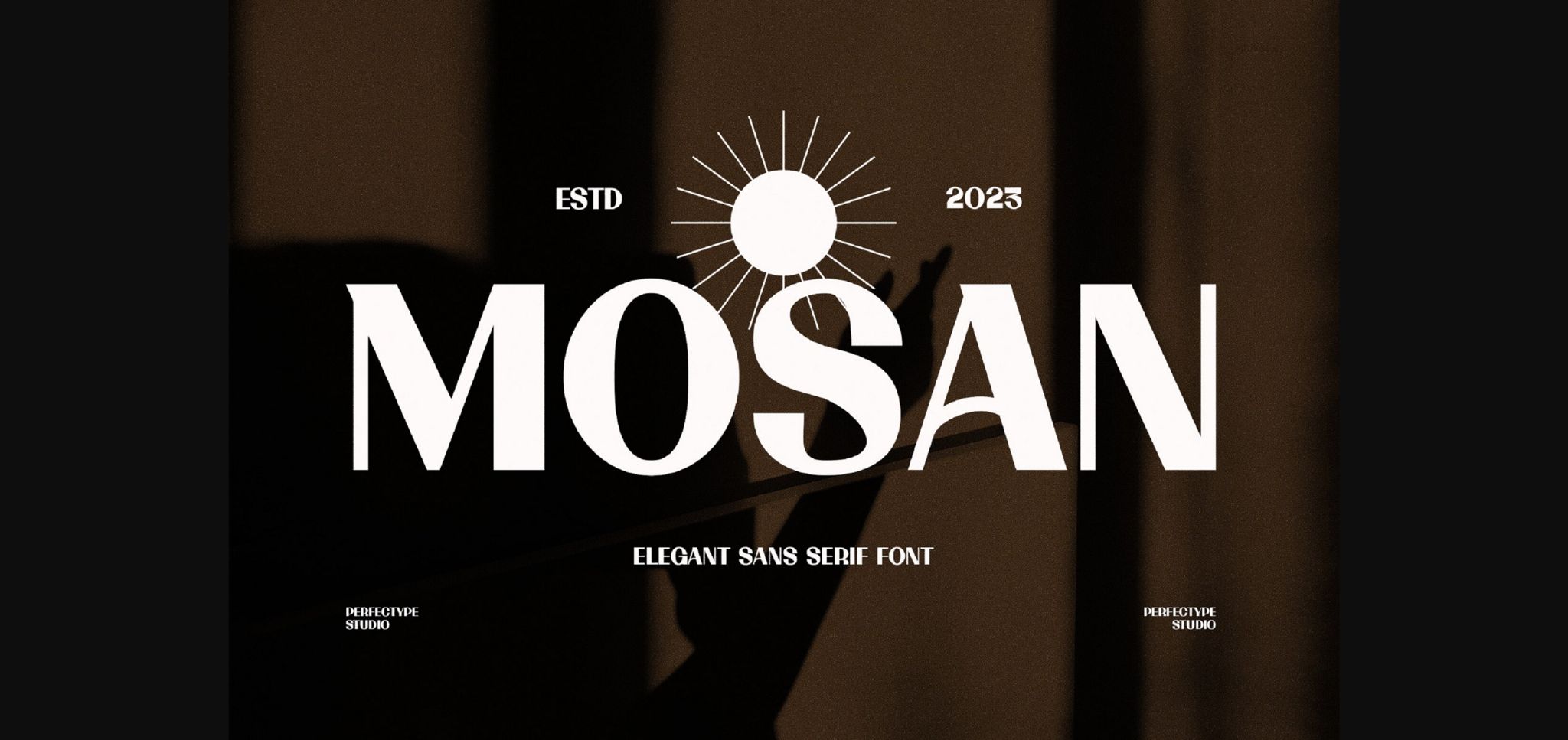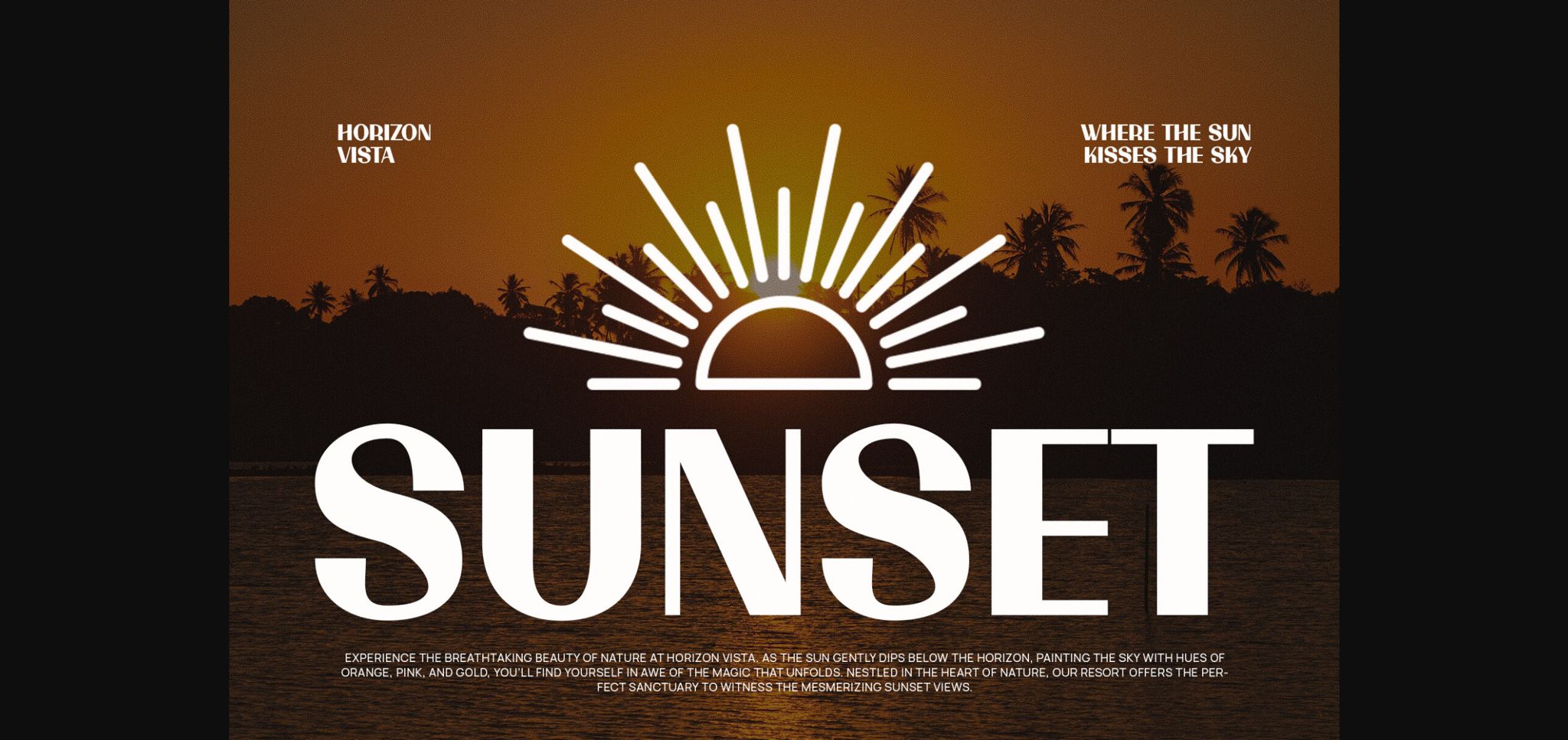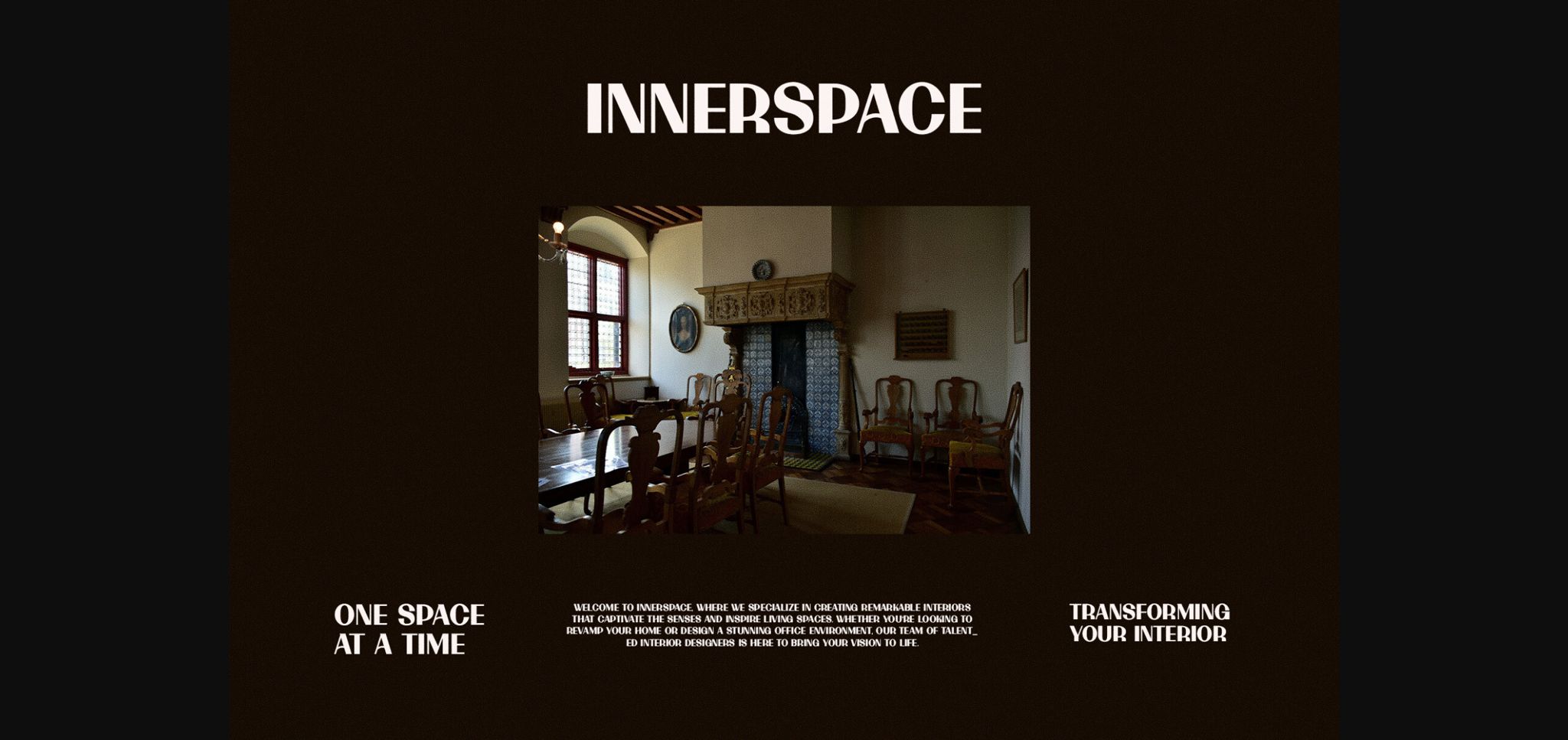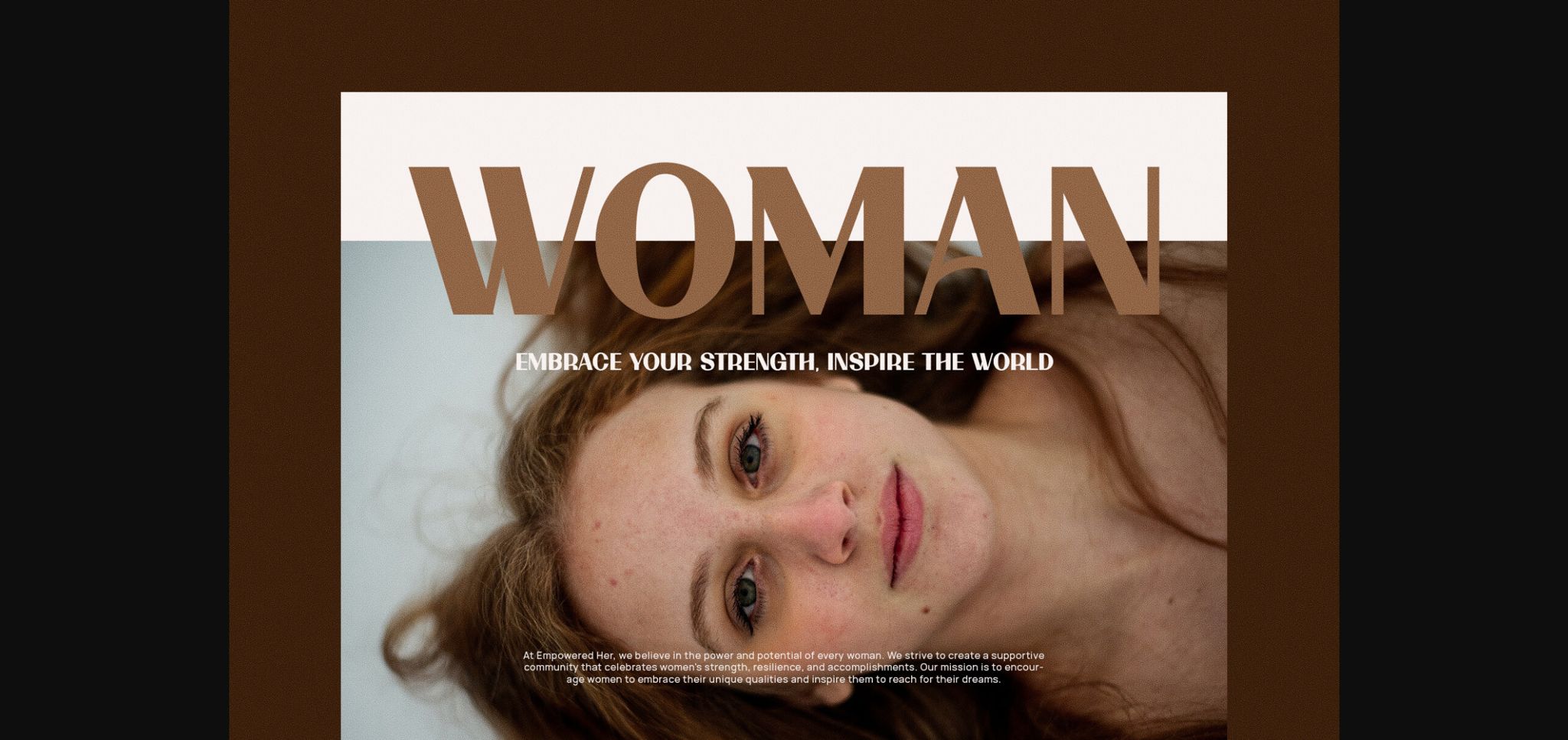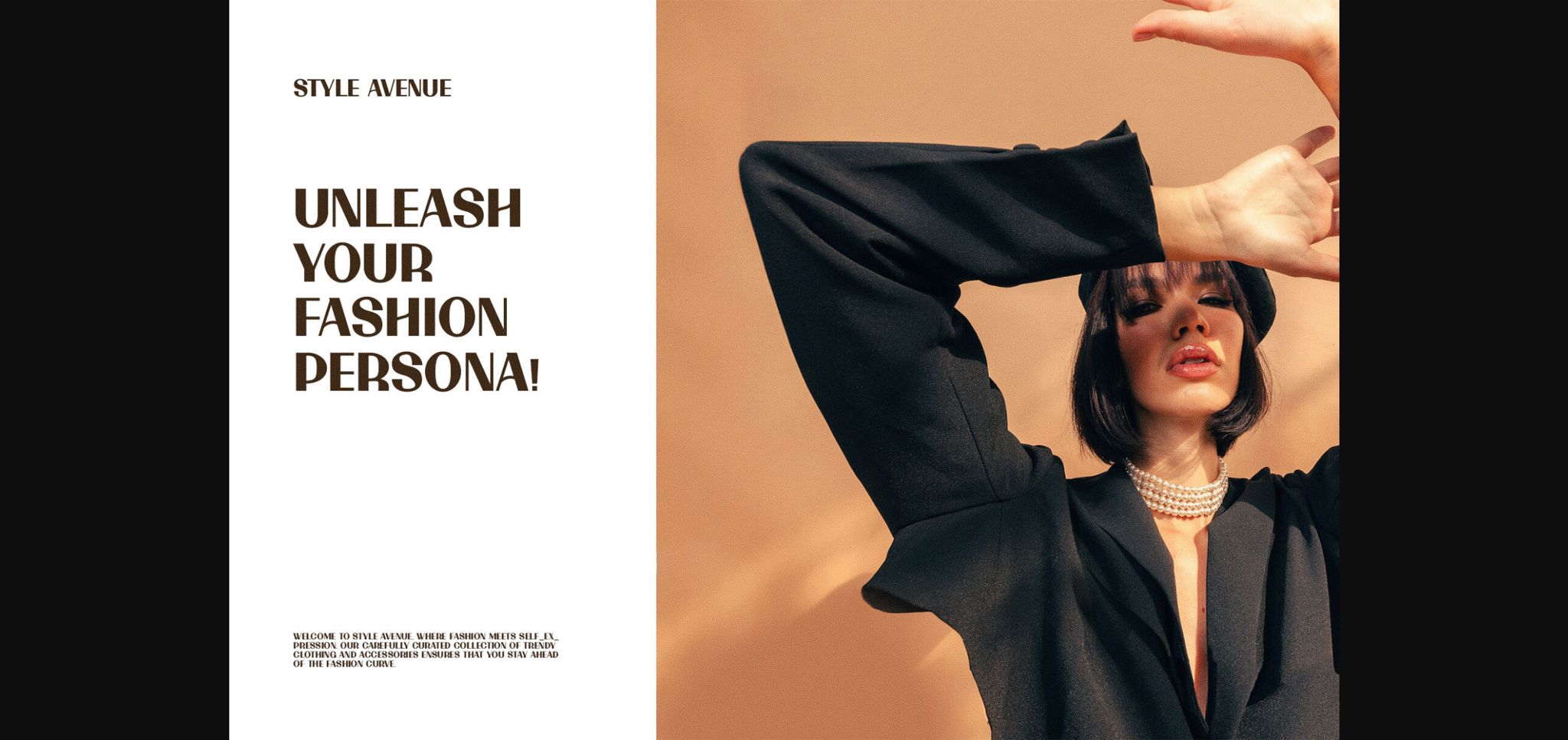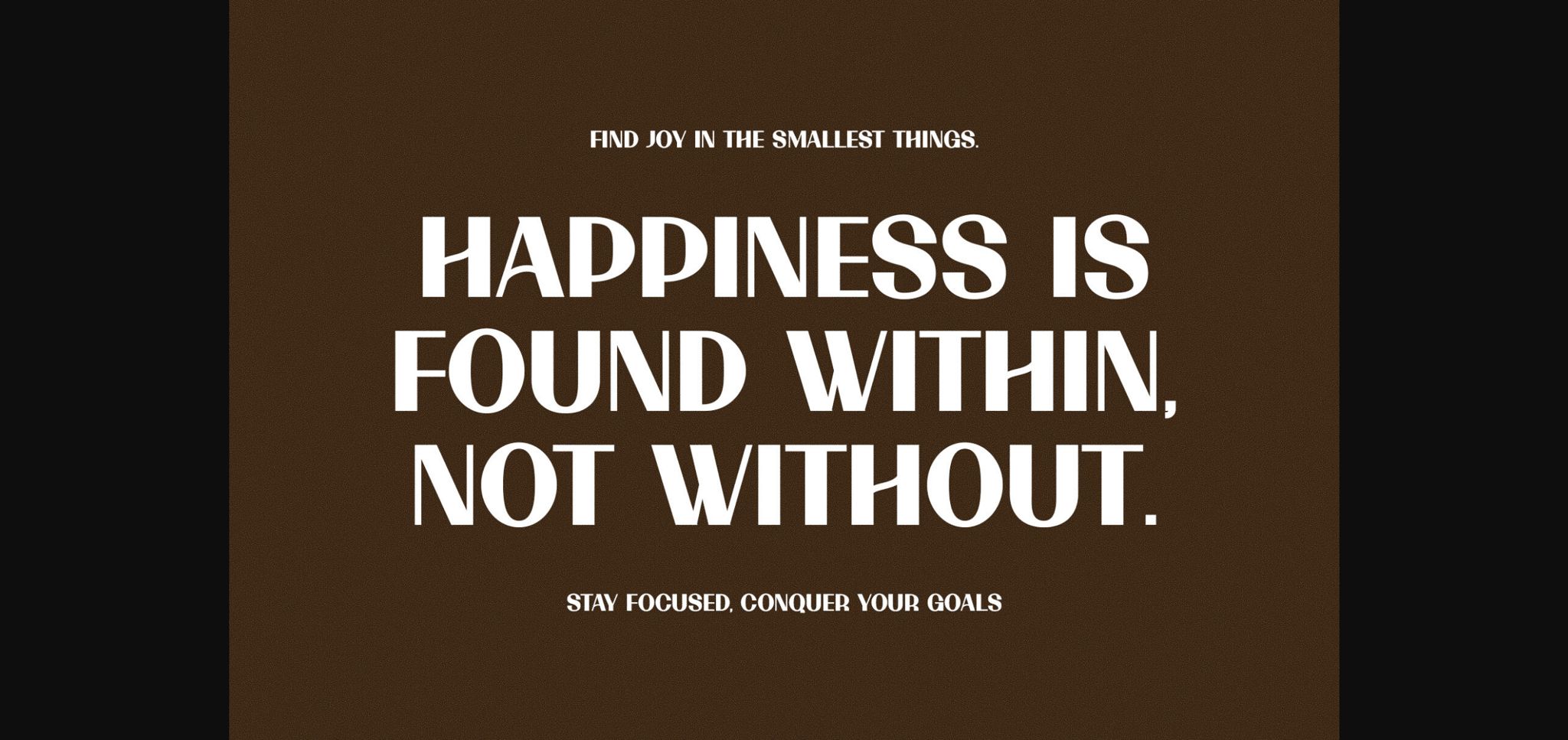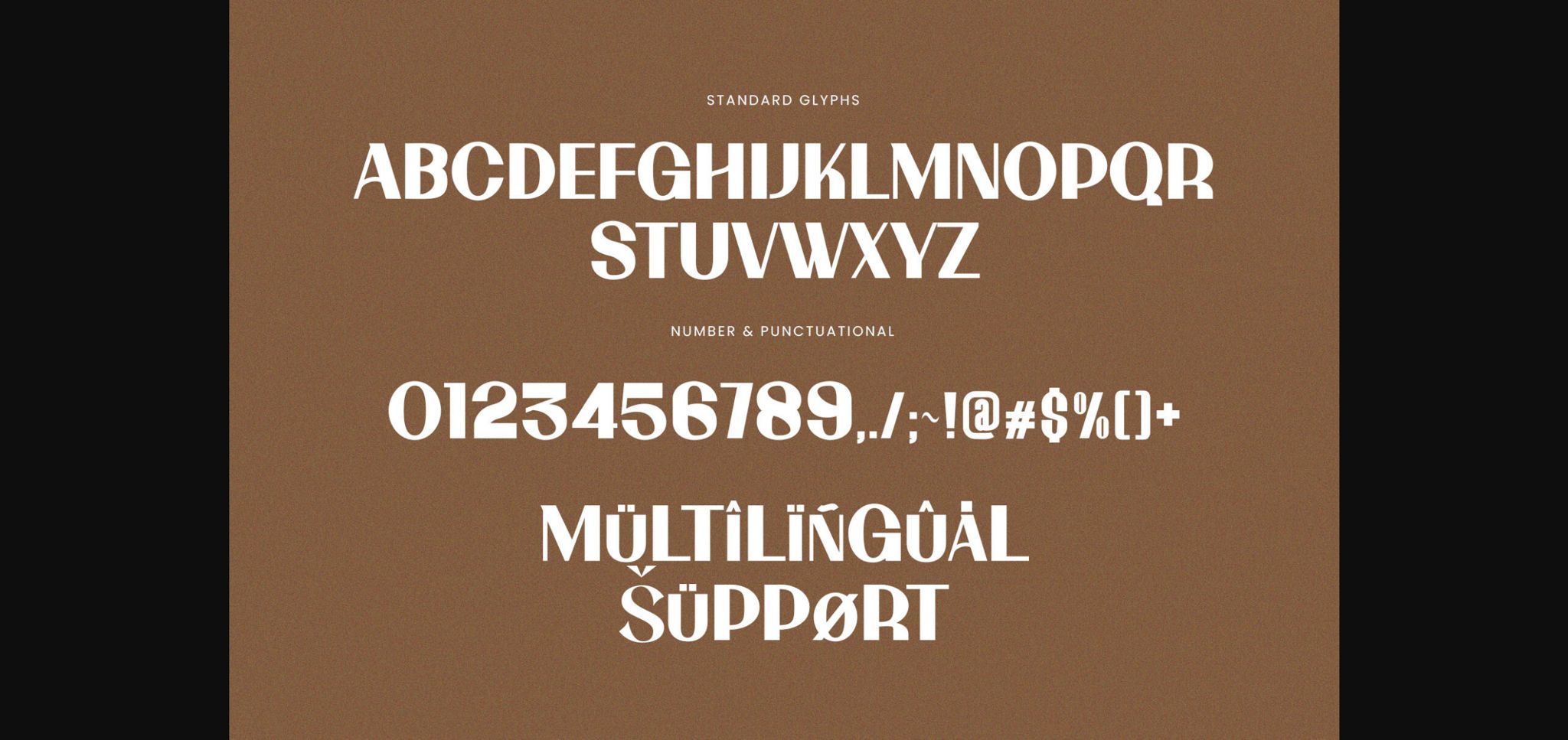
Mosan Font
About Mosan Font
Mosan is a unique and very elegant font for branding and logo designs
Elegant Sans serif typeface combined with a classy and modern style. This type of font is very suitable for your various needs such as branding projects, logos, wedding designs, social media posts, advertisements, product packaging, product designs, labels, photography, watermarks, invitations, stationery, and any project, created with high level of readability.